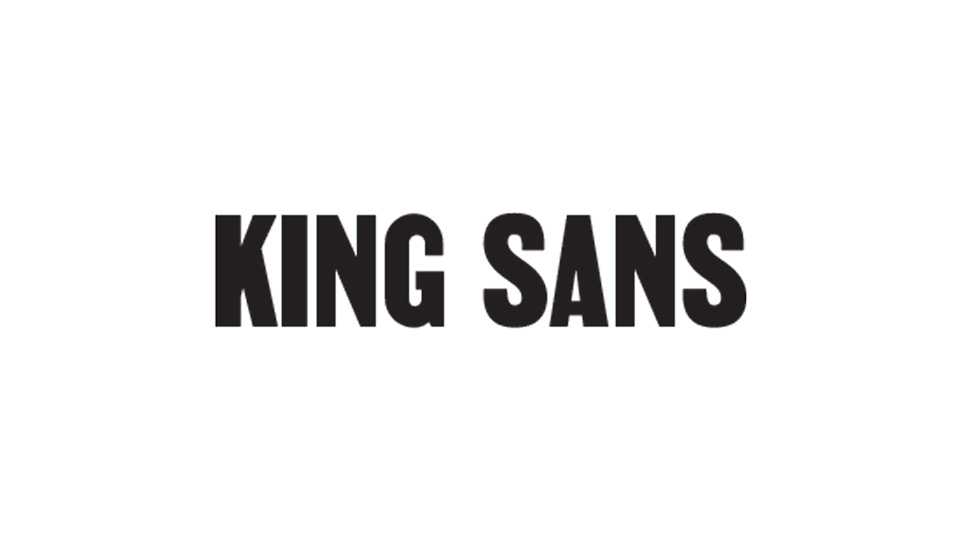
Download King Sans font, a bold sans serif typeface inspired by the hand lettered MLK memorial march placards. King Sans is best for display use, posters,short messages and headlines.
Designer: Cody Curley